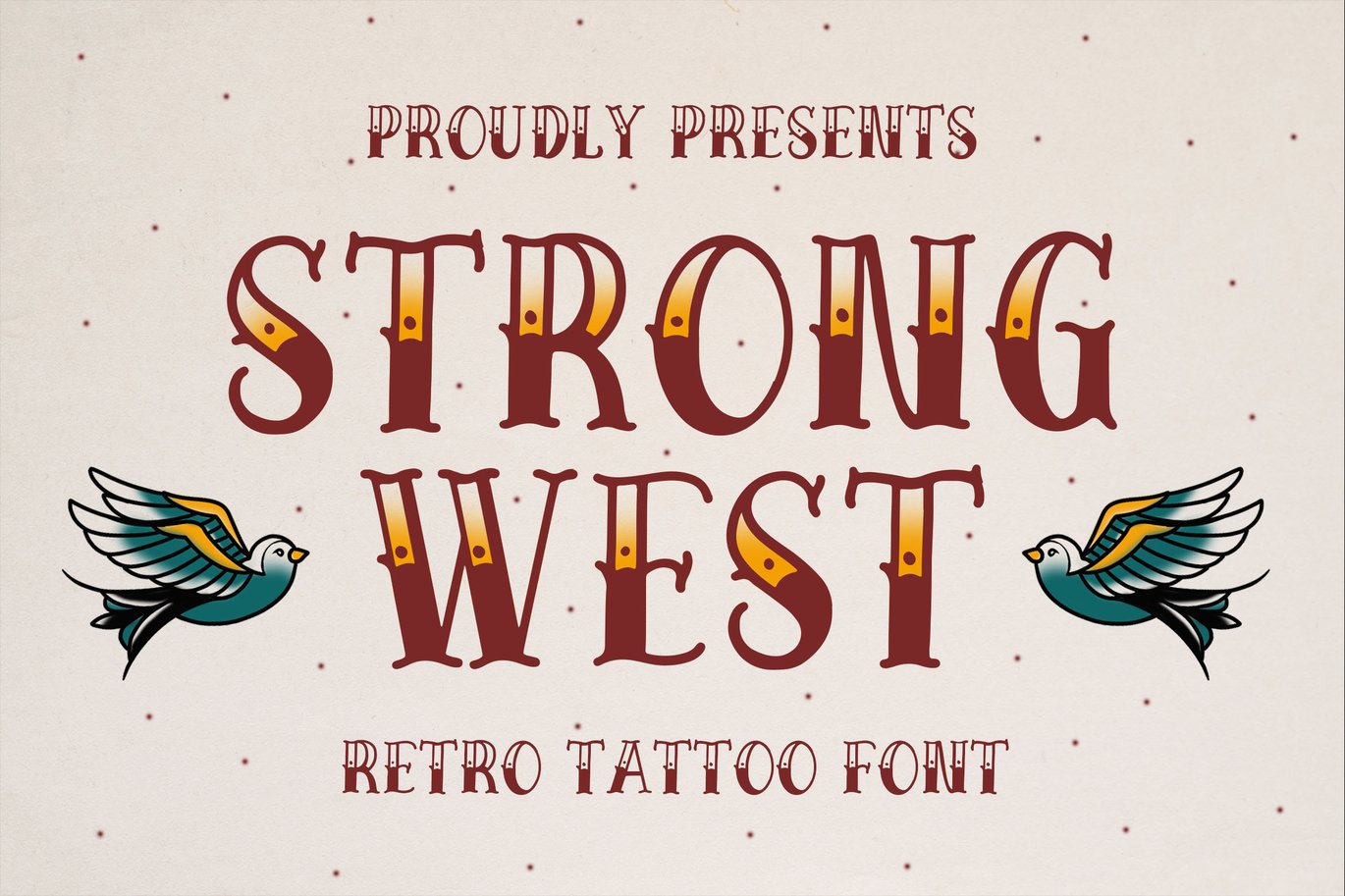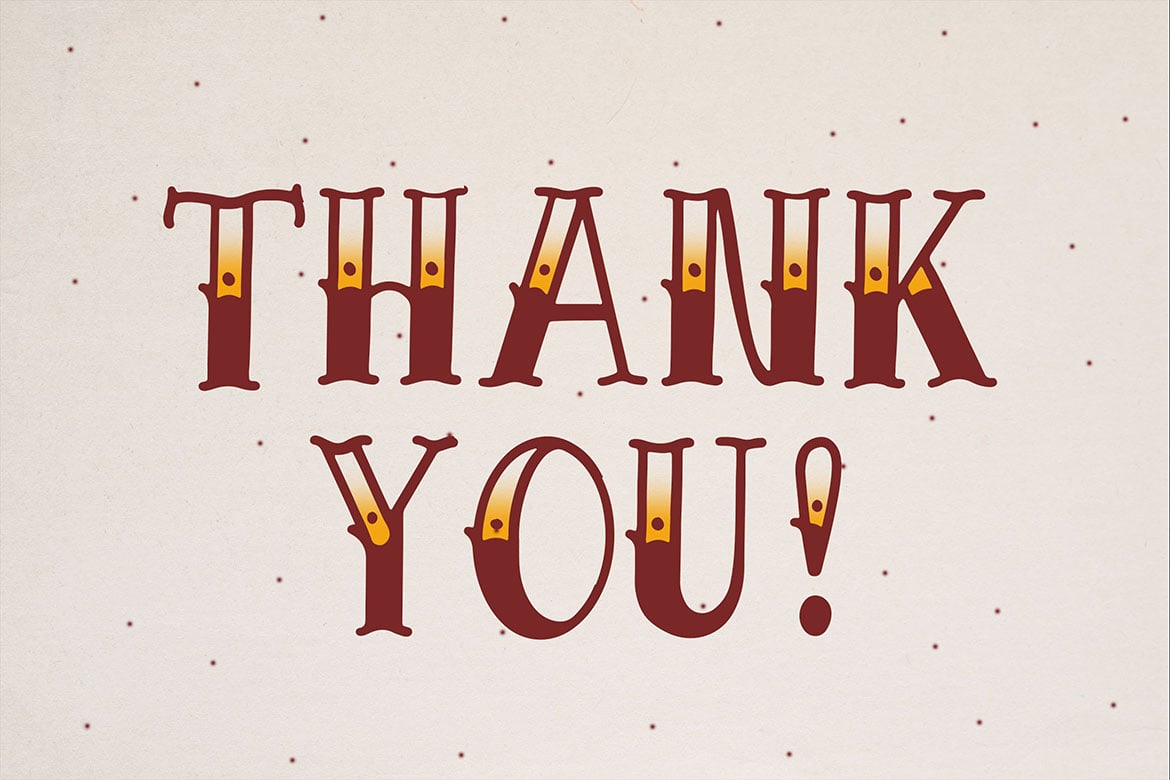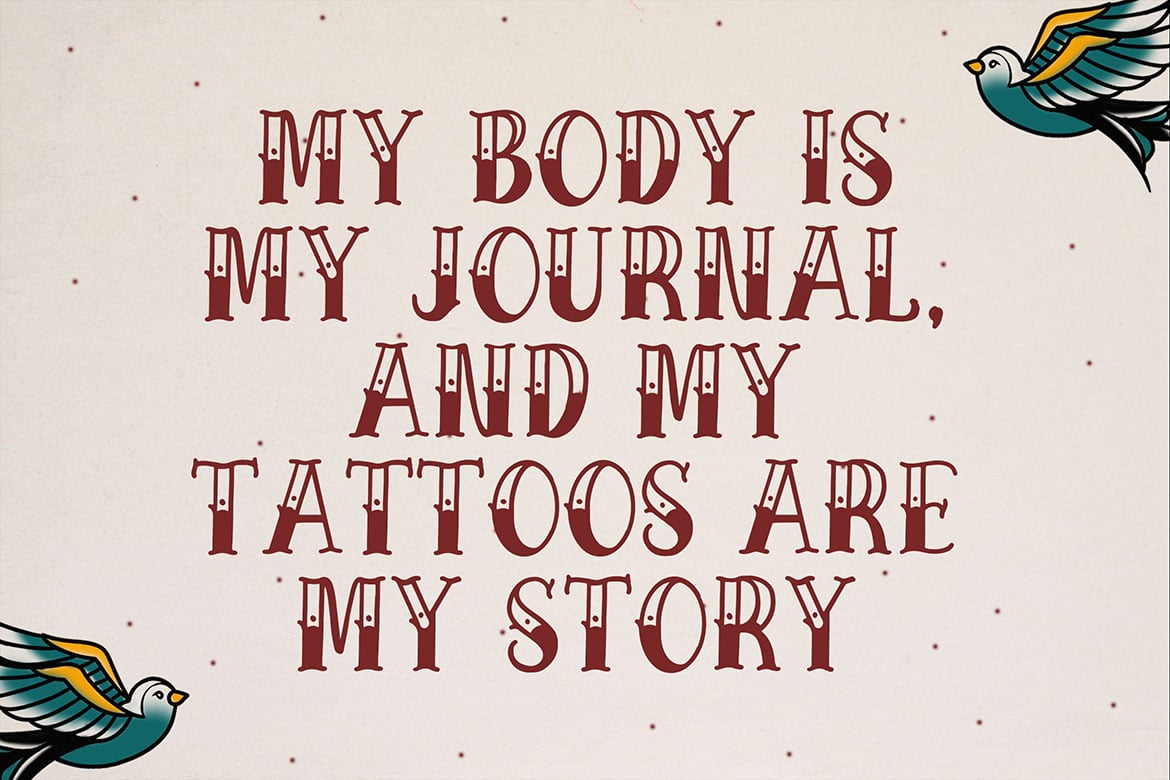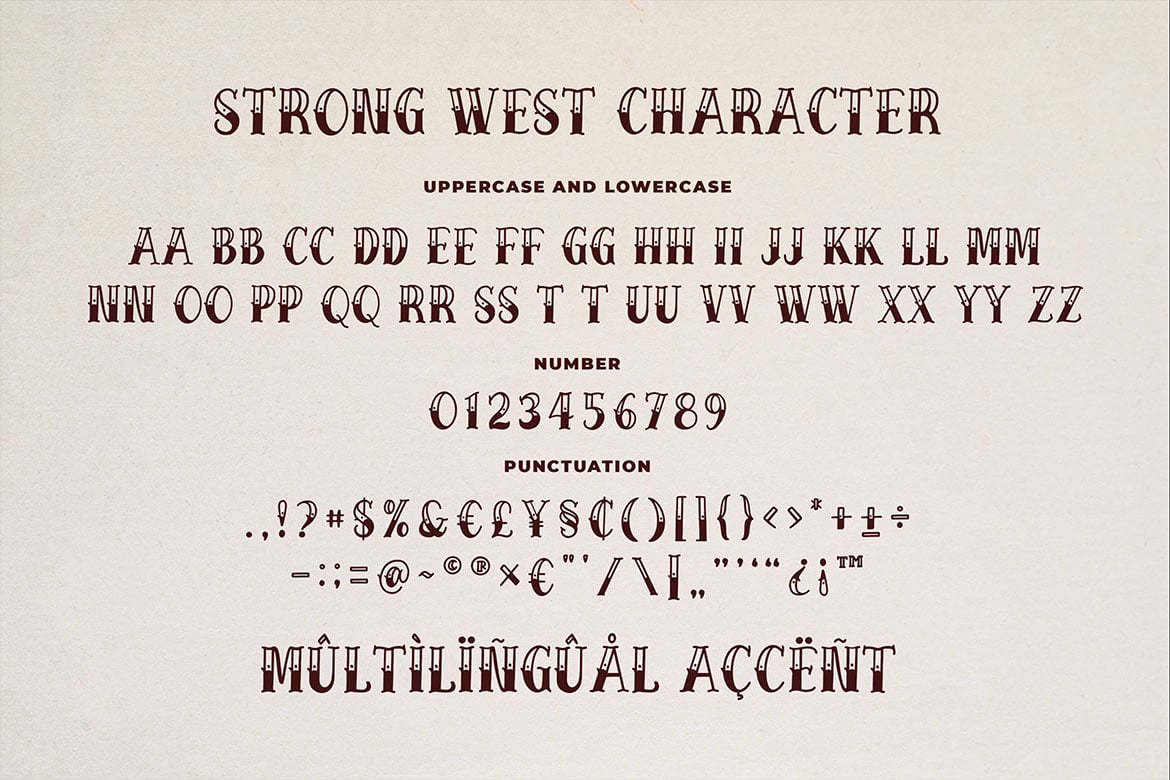
Strong West – Retro Tattoo Font
Introducing a new Script font called Strong West Retro Tattoo Font. Strong West good for logotype, Barbershop, badge, Tattoo Artist, Tattoo merchandise, tattoo letters and any more.
MULTILINGUAL ACCENT :
- ŽžŠŒšŸÀÁÂÃÄÅÆÇÈÉÊËÌÍÎÏÐÑÒÓÔÕÖØÙÚÛÜÝßàáâãäåæçèéêëìíîïðñòóôõöøùúûüýÿ